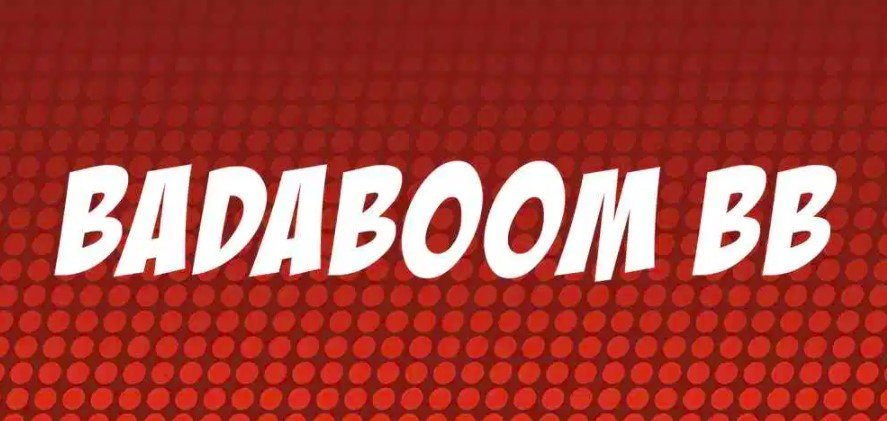
This typeface has boldest designing layouts that’s why it was enable to use as pairing with the combination of alegreya sans thin font. You get amazing results with this font.
View Of Badaboom BB Font
Before scroll down, lets see the example of this typeface which we provided by showing all the characters and glyphs contains in this font.
This is an amazing eye attractive typeface, anyone who can see the designs made with this font that can be used with debby font can easily attractive because of its uniqueness and catchy designs.
The font can be useful for utilized posters, banners, designing purposes, advertising, magazines, and other great stuff can be designed just with this font easily.
What Type of Font Is Badaboom BB?
The Badaboom BB Font is the famous and amazing typeface which was product of Blambot.